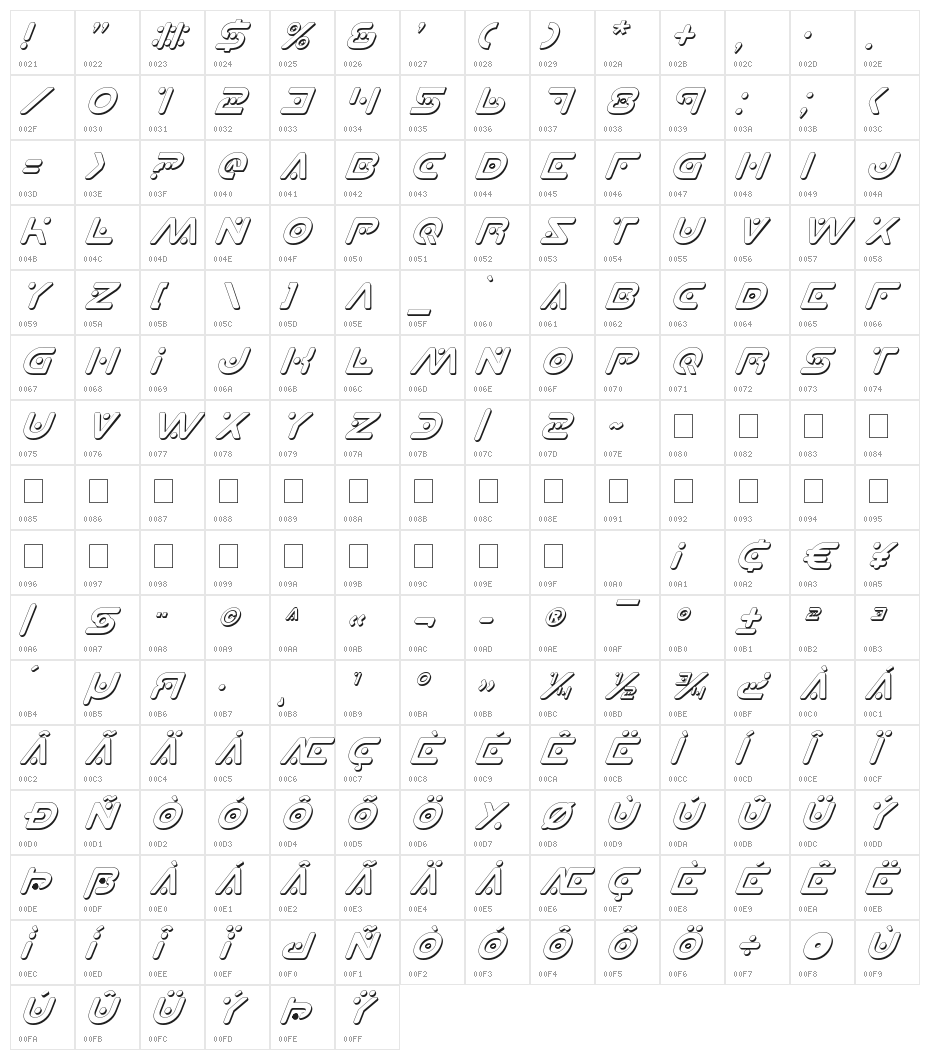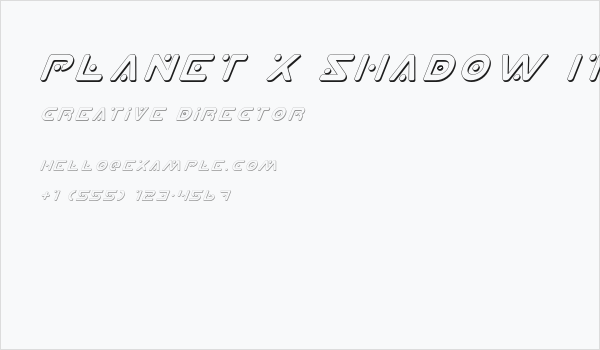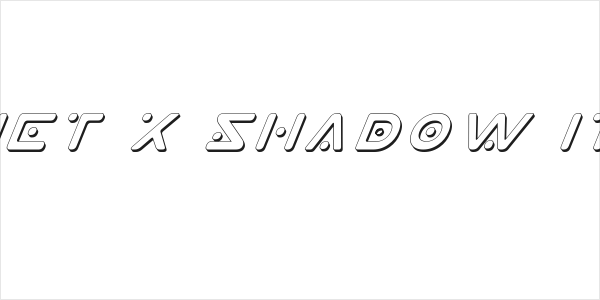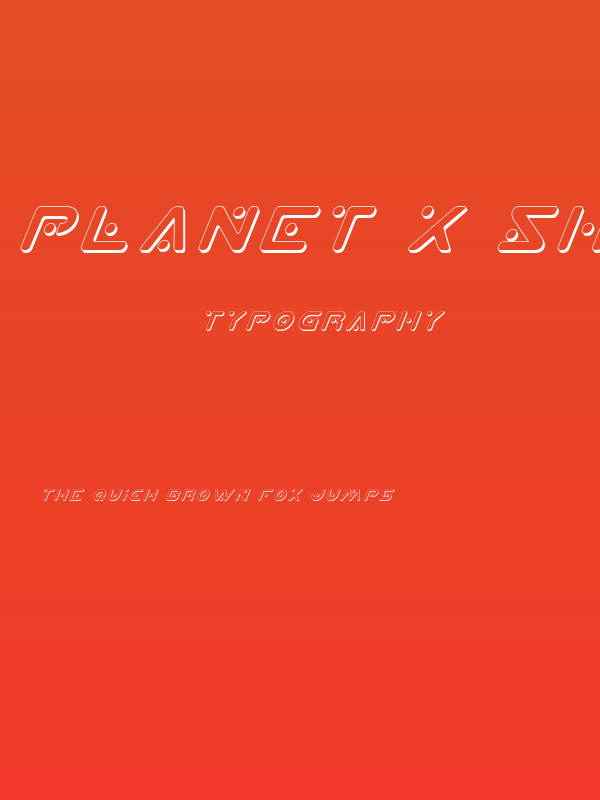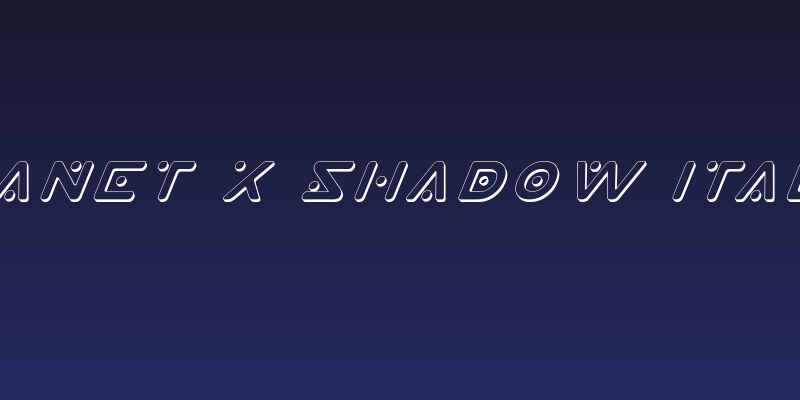
Planet X Shadow Italic Font
Planet X Shadow Italic Description
This font features a futuristic and dynamic design with a shadow effect that gives it a three-dimensional appearance. The characters are italicized, adding a sense of motion and speed. The strokes are bold and consistent, with a geometric style that emphasizes angular shapes and clean lines. The uppercase and lowercase letters maintain a cohesive look, while the numbers and special characters are designed to match the overall aesthetic. This font is ideal for projects that require a modern and edgy feel, such as technology-related branding or sci-fi themed designs.
Proposed ProjectsIdeal for technology branding, sci-fi themes, video game titles, and modern posters.